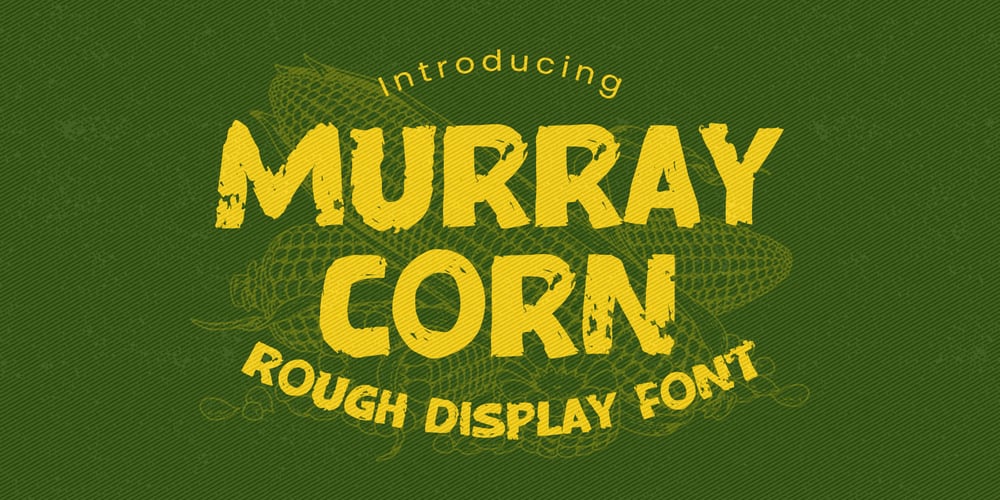
Murray Corn Font Family was designed by Abdul Malik Wisnu, Anang Fibriyanto and published by Gassstype. Murray Corn contains 1 styles and family package options. Introducing Murray Corn is Rough Display Font Typeface that is written casually and quickly. Letters are made with brushes on Procreate. Then crafted carefully drawn into vector format. is great for your creative projects such as watermark on photography, and perfect for logos & branding, photography, invitation, watermark,advertisements,product designs, stationery, wedding designs,label ,product packaging, special events or anything that need handwritting taste.That is why Murray Corn has charming, authentic and relaxed characteristic more natural look to your text with a more natural look to your text. design more interesting.